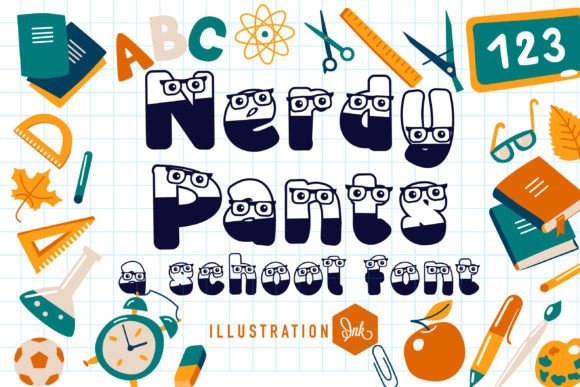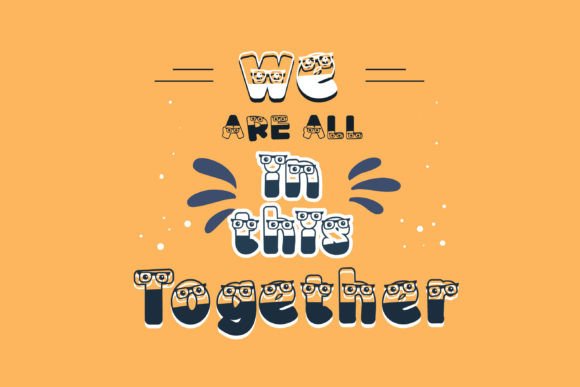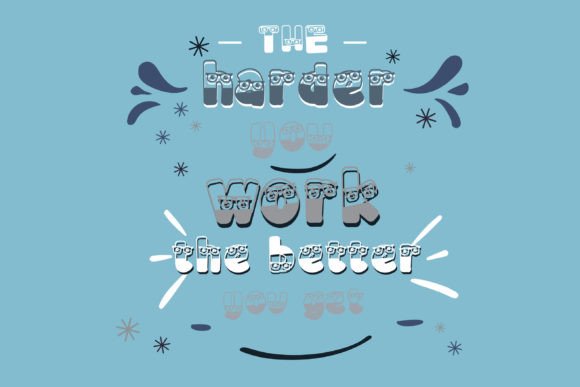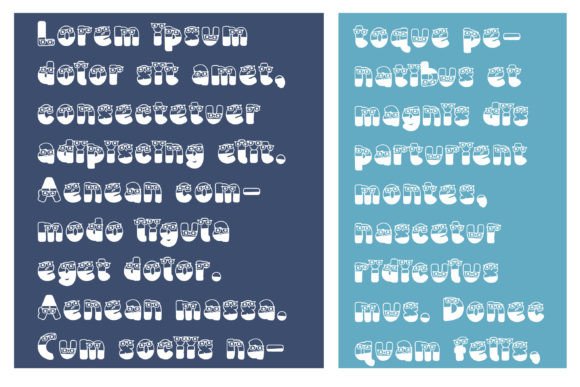
Nerdy Pants Font
About the Nerdy Pants Font
Introducing the Nerdy Pants Font, a beautifully crafted typeface designed to elevate your creative projects. This hand-crafted font sports a bi-color letter with cute kawaii-style glasses.
Nerdy Pants Font’s playful, friendly personality makes it ideal for children’s books, branding for educational products, or playful social media graphics. It works exceptionally well in headlines, short text blocks, and logos where its unique charm can shine. However, its handcrafted nature and decorative elements make it unsuitable for large blocks of body text or UI elements requiring high readability.
Pairing it with a clean sans-serif like Open Sans for body copy creates a balanced contrast, allowing Nerdy Pants to retain its visual interest without sacrificing overall clarity. Alternatively, a simple serif font such as Merriweather could provide a touch of classic elegance that complements the font’s quirky charm. Avoid pairing it with other highly decorative fonts, which might create visual clutter.
The font’s core personality is undeniably fun and approachable, yet retains a level of sophistication through its well-crafted details. This makes it versatile for projects targeting a young, intelligent, and creative audience.
Nerdy Pants Font Usage Examples
Nerdy Pants Font Example